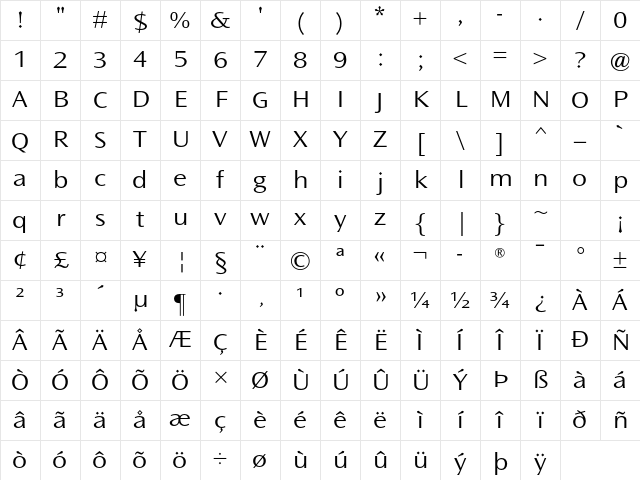
Ocean Sans Std Light Extended Free Font
Ocean Sans Std Light Extended
Style: Light Extended
Designer: Chong Wah
Design Context for Ocean Sans Std
Ocean Sans Std is a composed and adaptable typeface that performs quietly and consistently across a wide range of design contexts. Its slender proportions lend an understated elegance to any composition.